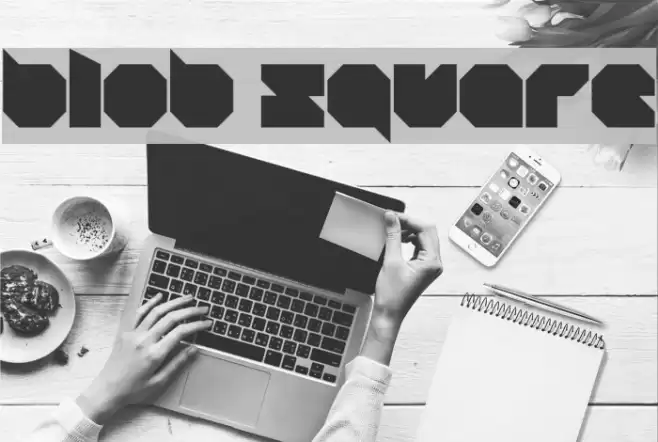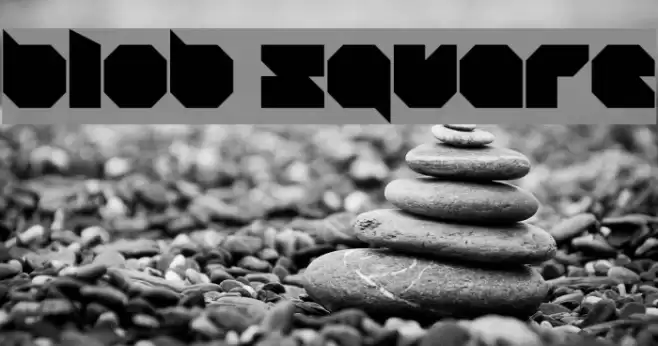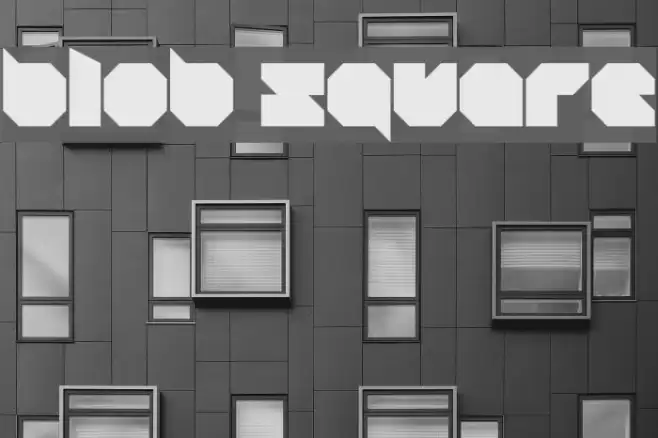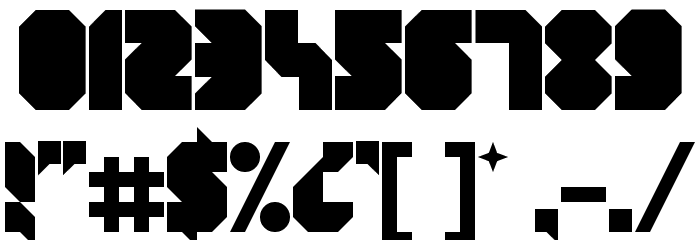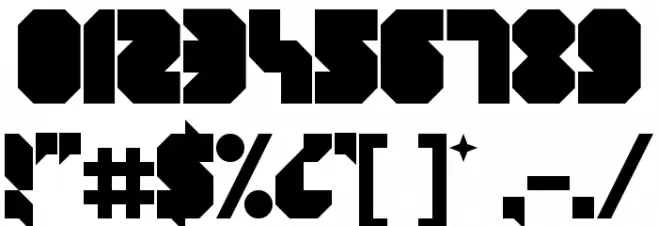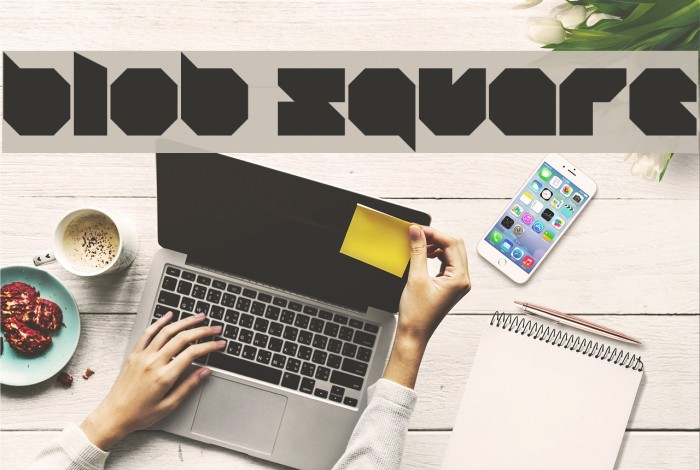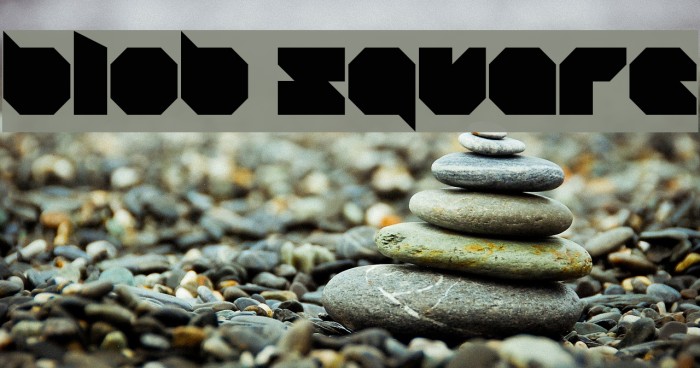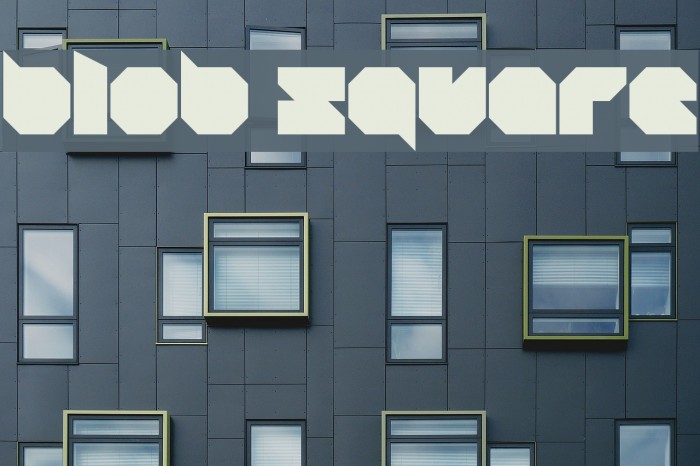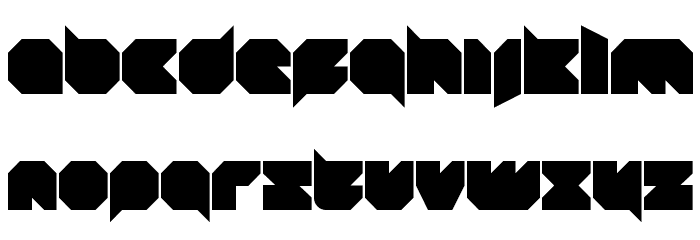
blob square Font
blob square Description
This font features a bold, geometric style with sharp angles and a blocky appearance. Each character is constructed with a series of straight lines and sharp corners, creating a futuristic and edgy look. The uppercase and lowercase letters maintain a consistent height, contributing to a uniform appearance. Numbers and special characters follow the same design principles, ensuring cohesion across all glyphs. The font's unique style makes it stand out, ideal for projects that require a strong visual impact.
A bold, geometric font with sharp angles and a futuristic style from Futuristic fonts.
- Proposed Projects: Ideal for branding, posters, album covers, and any design needing a bold, modern touch.